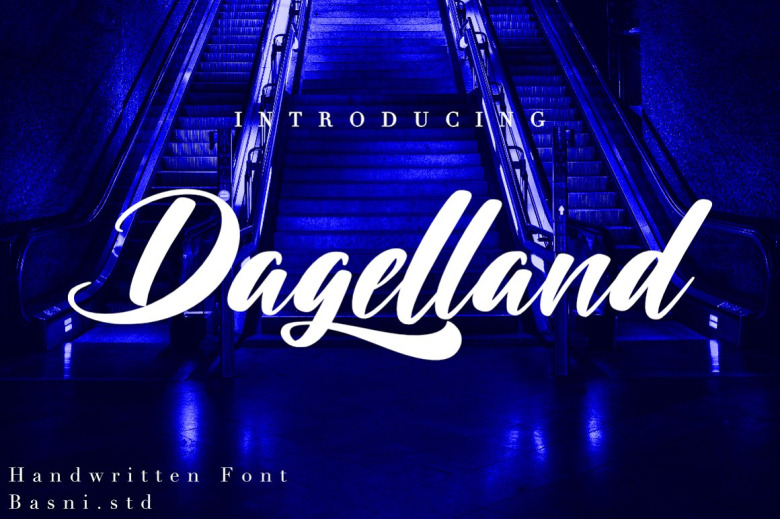
Dagelland Font
Dagellandis a Handwritten Font which comes naturally, by using digital brush this font is great for: branding, websites and design invitation at newspaper. describe(“All type of letters, multilingual support and punctuation”, () => { You can access anything you want fairly easily, specifically with OpenType supported software.
Dagelland Handwritten Script Font